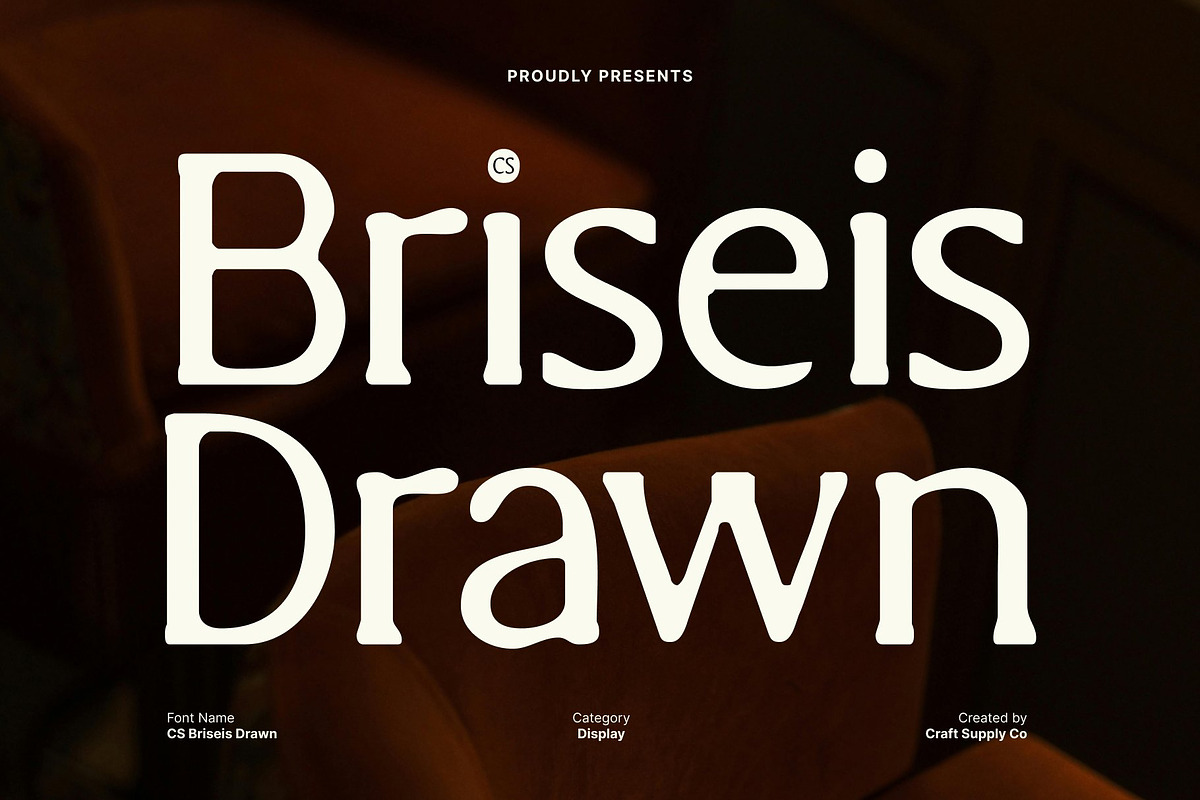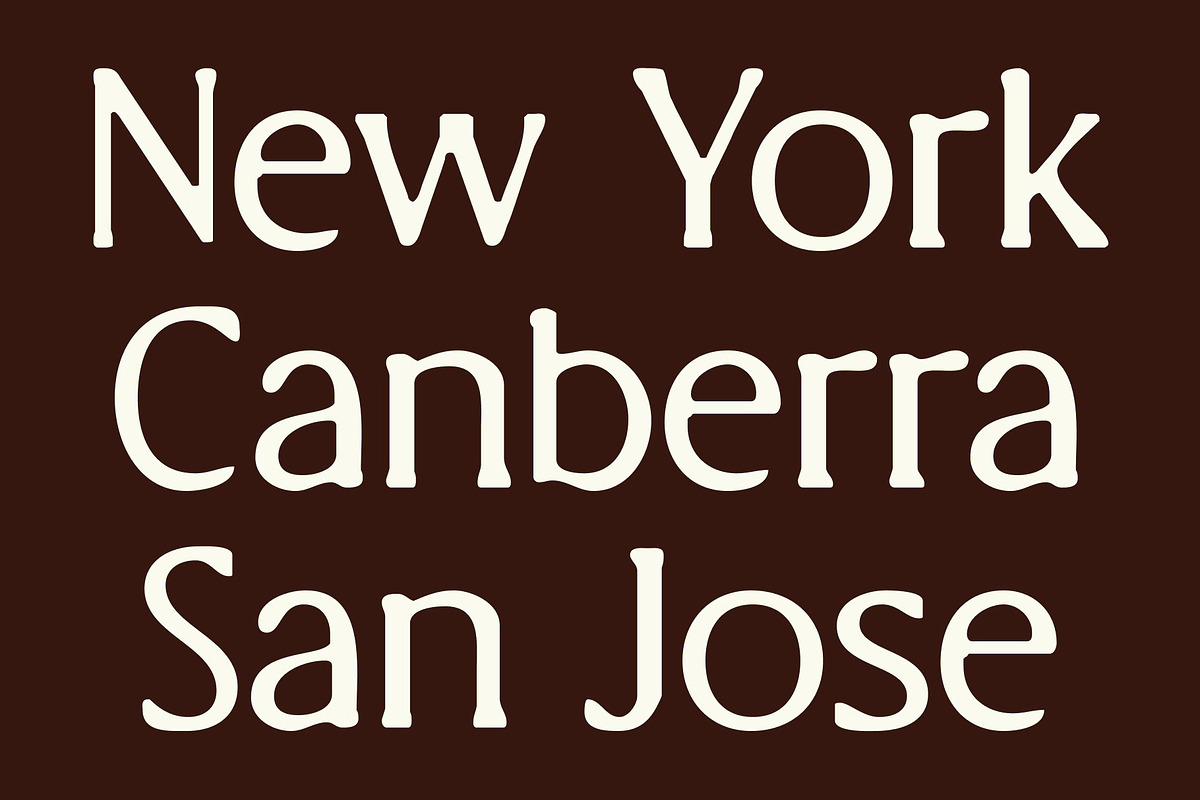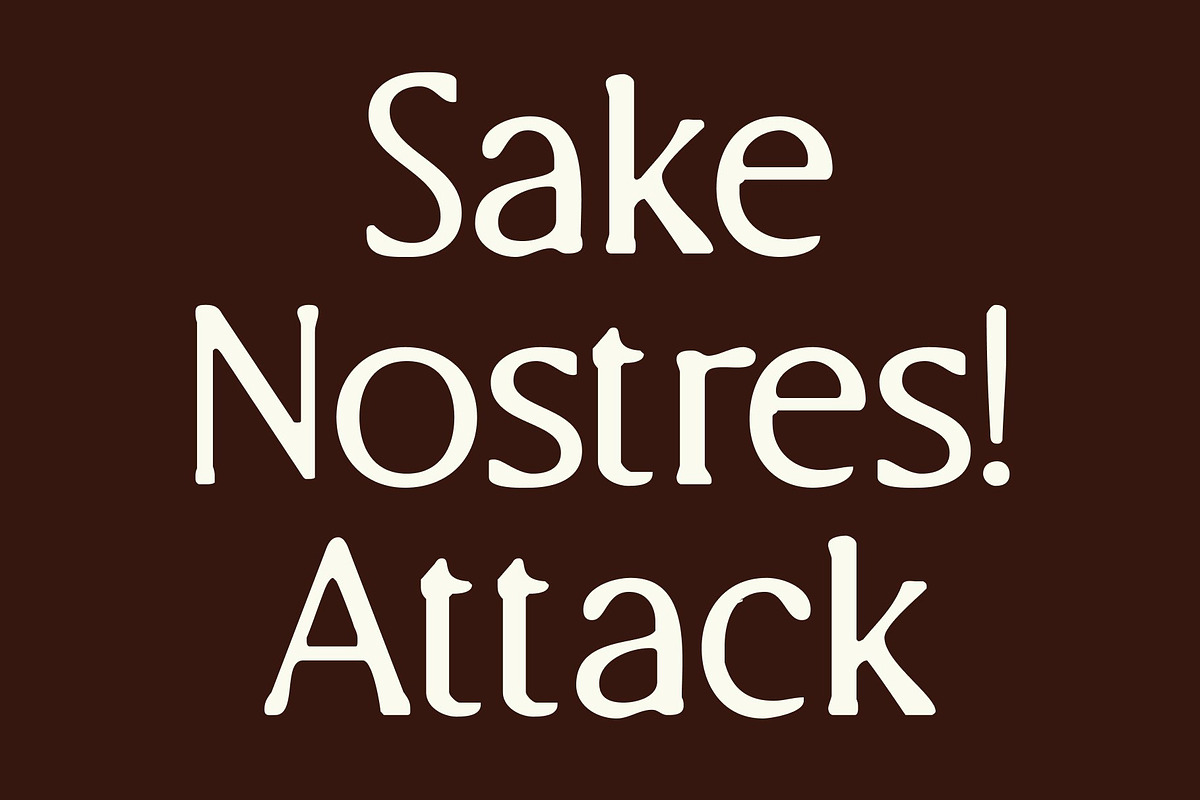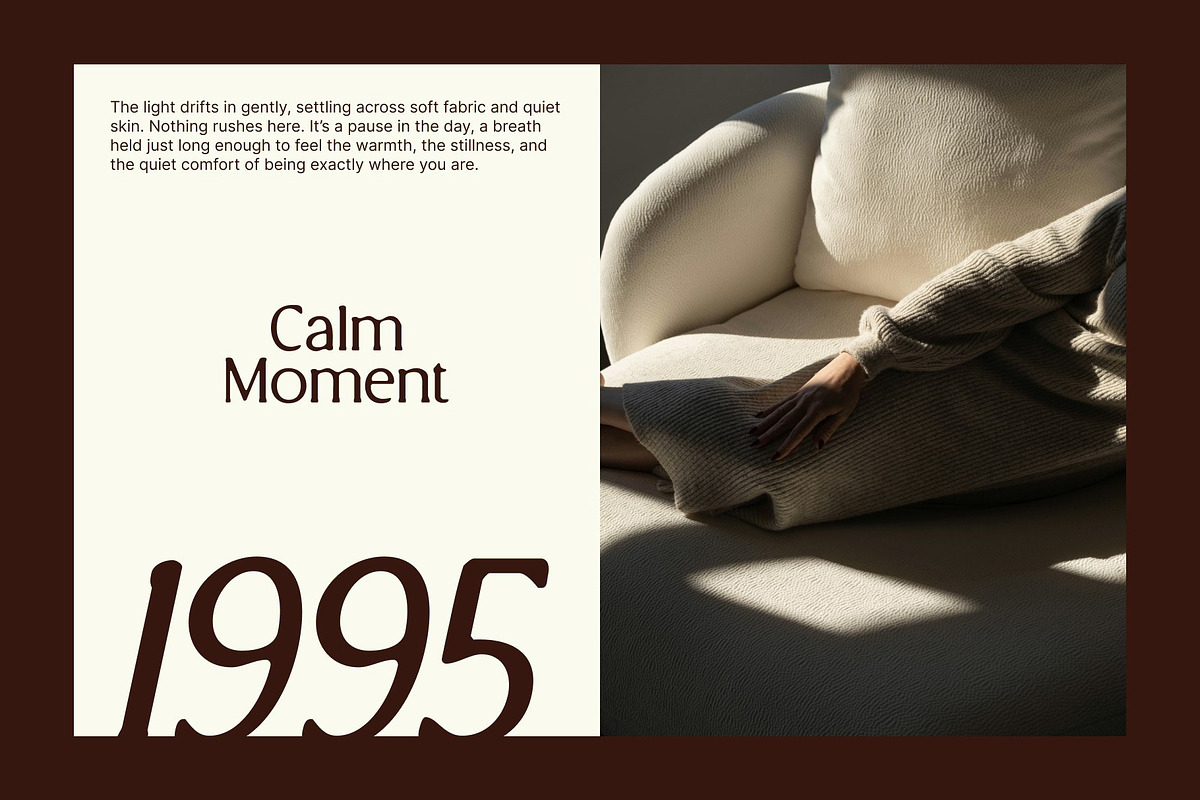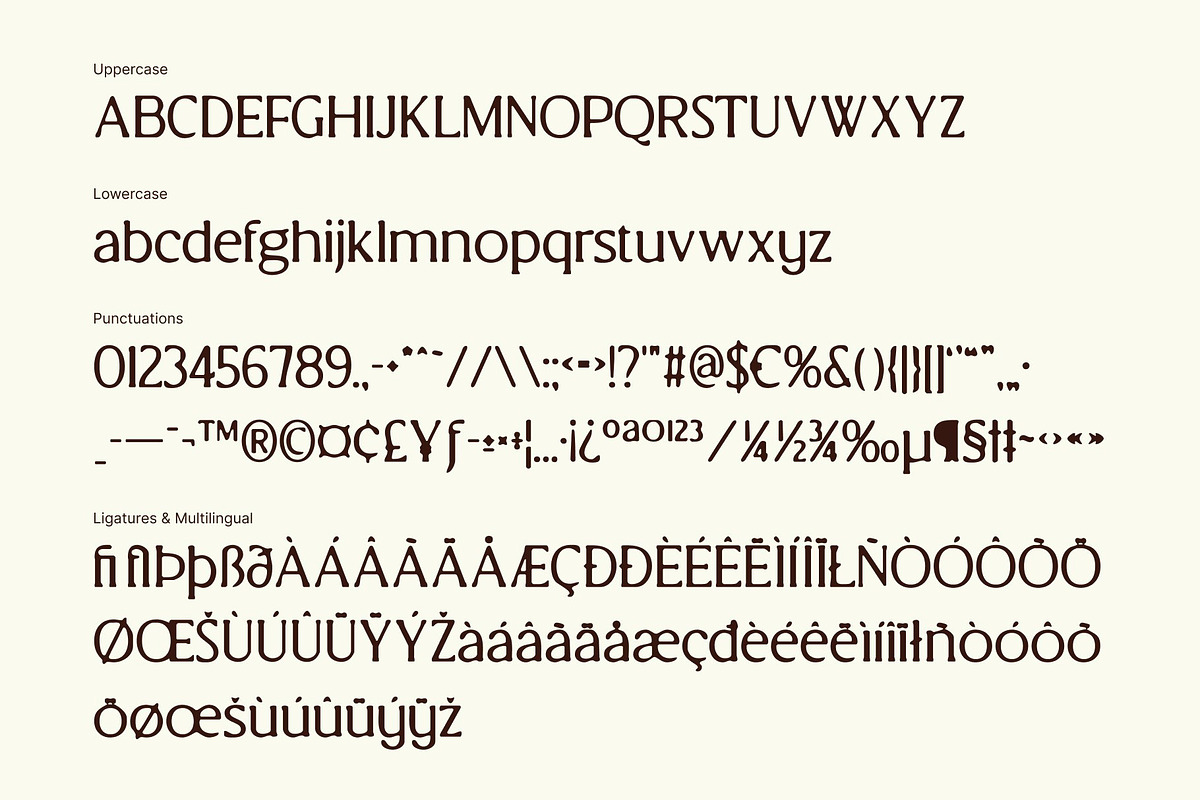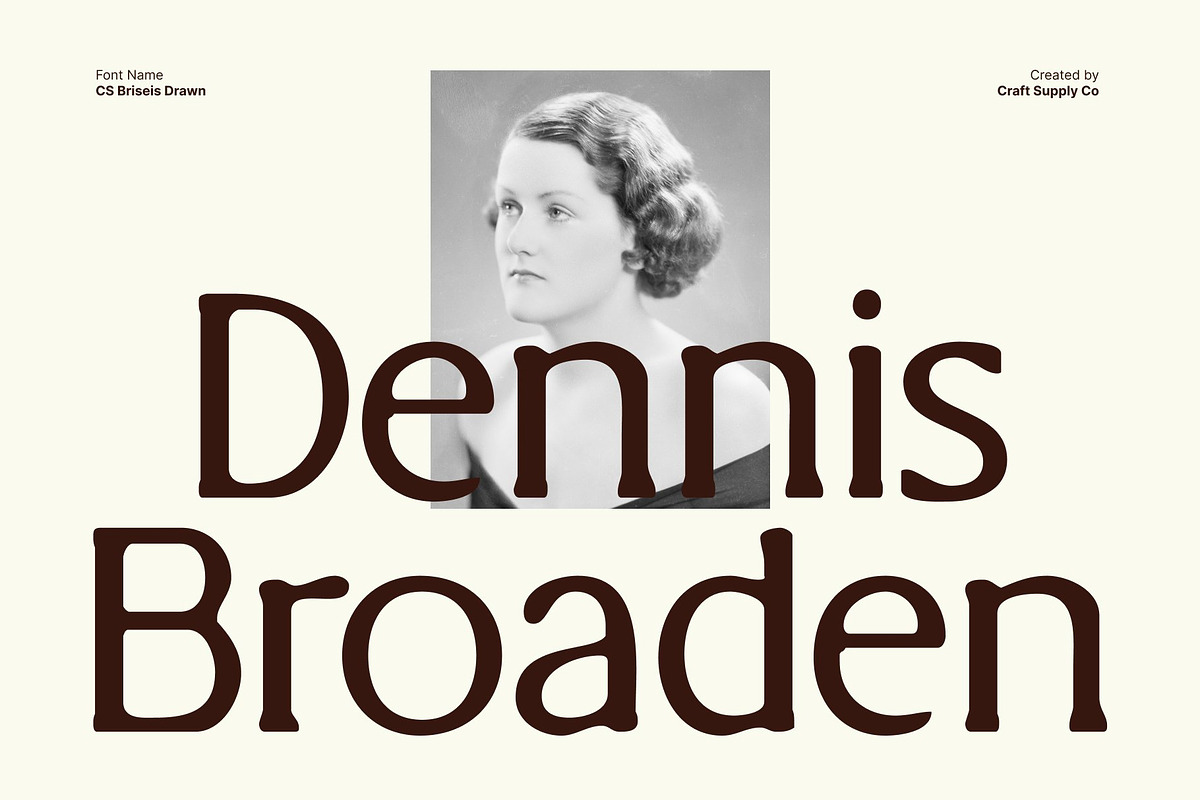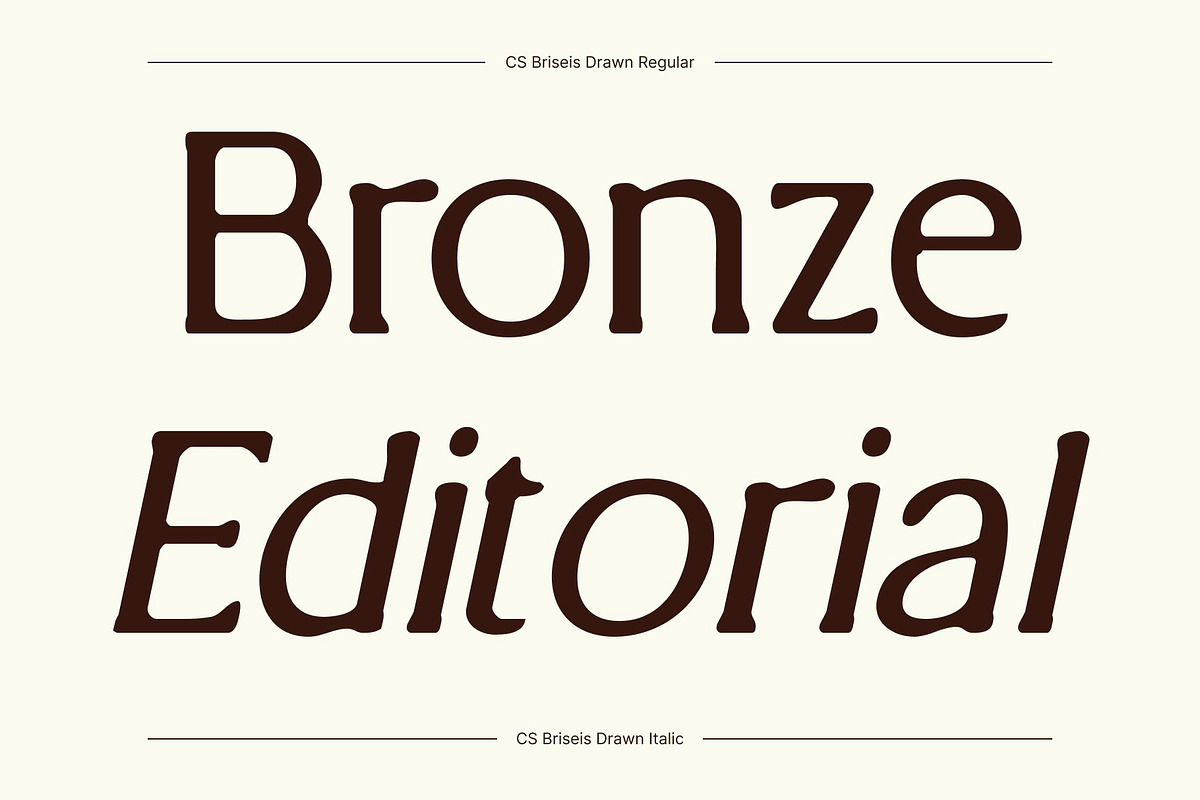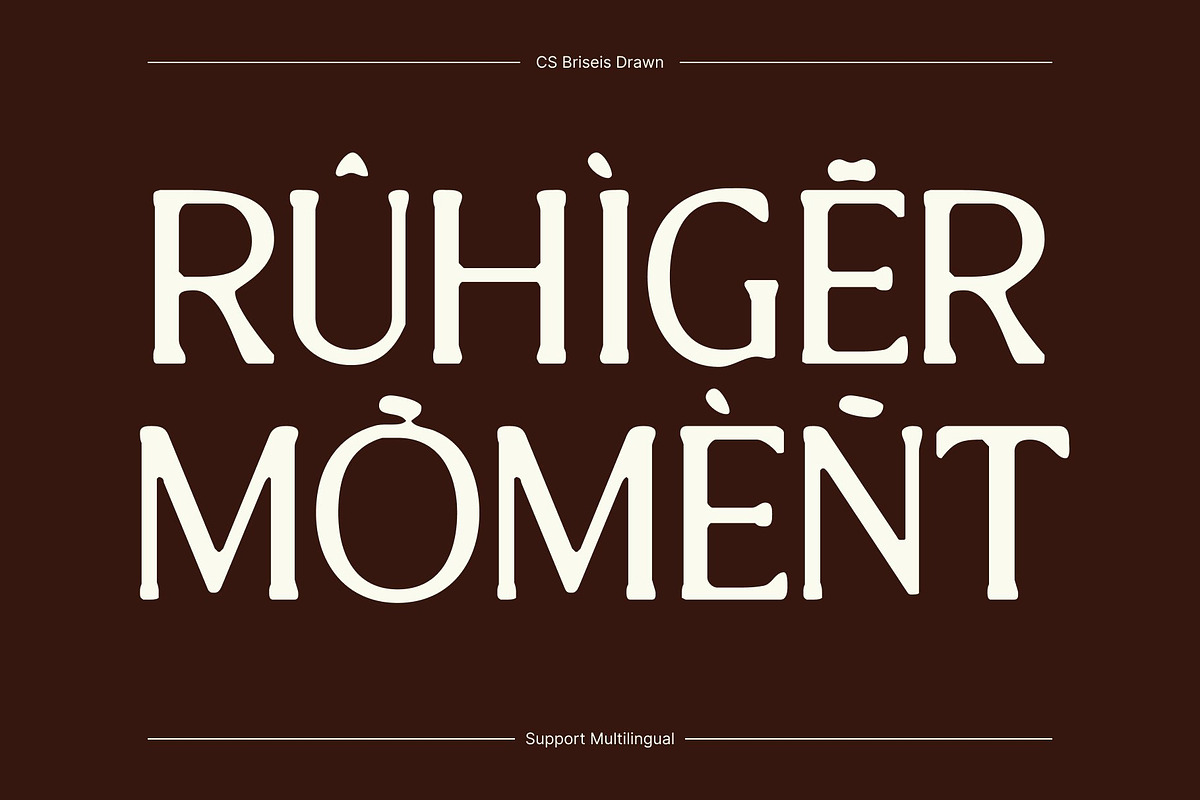
CS Briseis Drawn
CS Briseis Drawn – Refined Elegance for Modern Luxury
Luxury Serif with Timeless Sophistication This is a luxury serif font defined by refined curves and graceful proportions. Designed with precision and balance, it embodies timeless elegance while maintaining a clean, modern sensibility. Each character flows smoothly, creating a harmonious visual rhythm that feels sophisticated and confident.
Refined Curves with Hand-Drawn Texture Delicate serifs and smooth lines form the foundation of this typeface, enhanced by a subtle drawn texture that adds warmth and character. The handcrafted nuance softens its polished structure, giving the font a natural, organic feel without compromising its premium appearance. This balance results in typography that feels elegant, expressive, and visually calm.
Perfect for Editorials, Branding, and Packaging This font excels in high-end applications such as editorials, book covers, luxury branding, fashion campaigns, and premium packaging. Its refined proportions and excellent readability allow it to communicate sophistication, making it ideal for designs that require both beauty and clarity.
A Timeless Typeface for Modern Designers Blending classic serif heritage with contemporary refinement, this font is a versatile choice for modern designers. Its elegant personality and subtle handcrafted touch create visuals that feel luxurious, intelligent, and enduring perfect for projects that value timeless style with a modern voice.
- CS Briseis Drawn Regular
- CS Briseis Drawn Italic